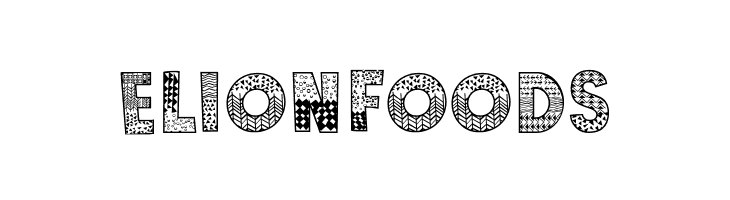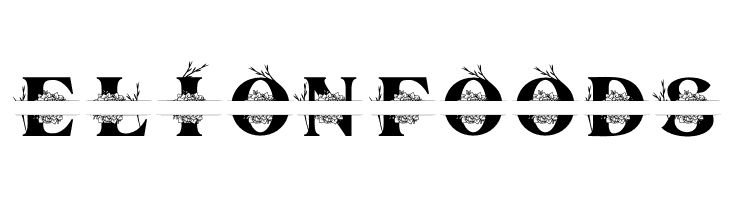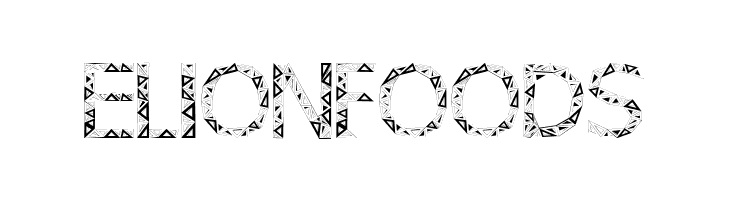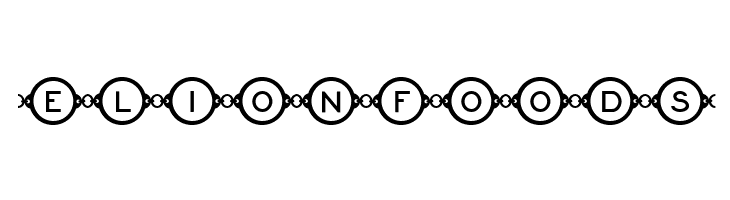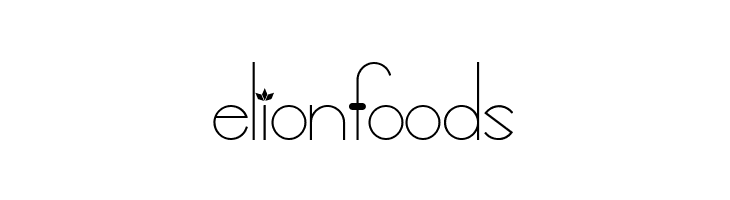
( Fonts by Julia Holdnack )
A whimsical, decorative font with nature-inspired embellishments and modern elements.
( Fonts by Din Studio )
A decorative font with floral embellishments and bold, artistic letters.
( Fonts by Galdino Otten )
A playful, decorative font with intricate patterns and textures.
( Fonts by EvasUniqueFonts )
A decorative font with bold letters in circular frames linked by ornamental designs.